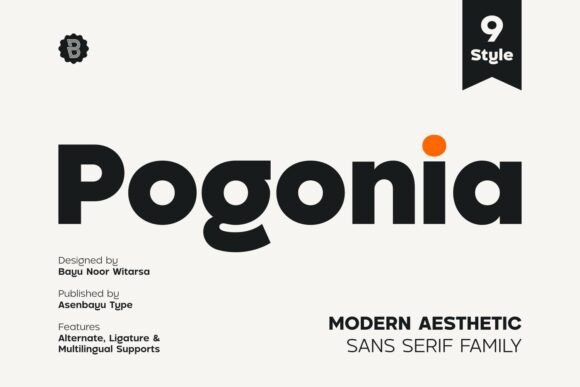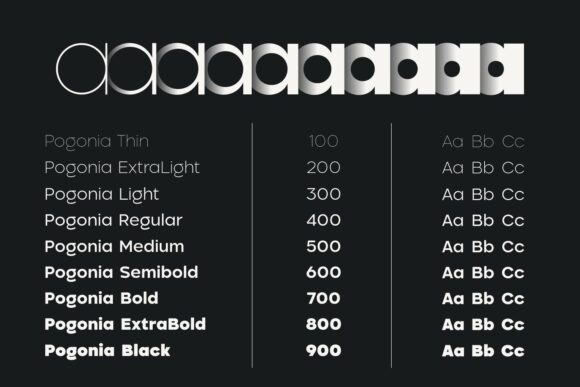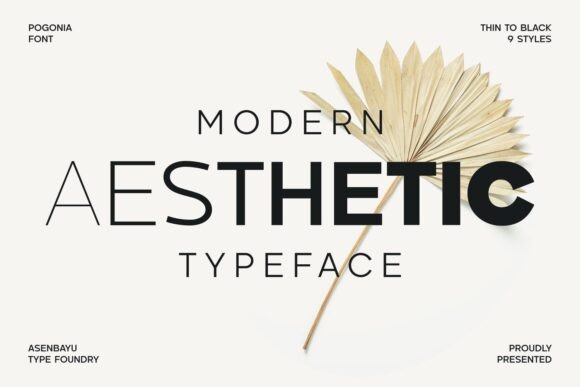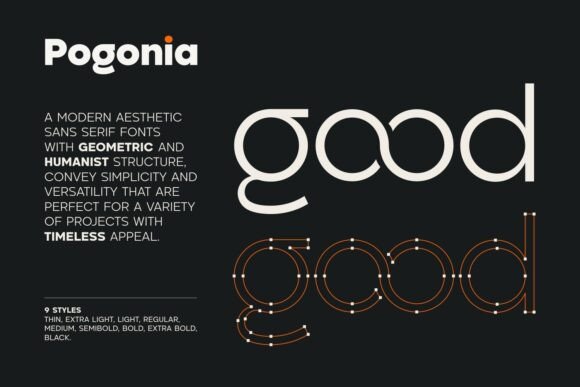
Pogonia Font: Modern Sans Serif for Logo Design & Branding
About the Pogonia Font
Introducing the Pogonia Font, a beautifully crafted typeface designed to elevate your creative projects. Pogonia is a modern aesthetic sans serif fonts with geometric and humanist structure, convey simplicity and versatility that are perfect for a variety of projects with timeless appeal. Use it to convey desired logo designs, attractive posters, social media designs, fashion and websites.
Pogonia’s clean geometry makes it ideal for headlines, branding elements, and short-form text in posters or social media graphics. Its versatility extends to website headers and app interfaces where clarity is paramount, but its humanist structure limits its effectiveness for large blocks of body text. Avoid using it for lengthy paragraphs or UI elements requiring high legibility at small sizes.
The font’s personality is modern and sophisticated, yet approachable. It projects confidence without appearing overly aggressive. Brands seeking a clean, contemporary image will find Pogonia a strong choice.
Consider pairing Pogonia with a classic serif like Garamond for a sophisticated contrast, or a playful script font like Allura for a touch of elegance and personality. For a more minimalist approach, pair it with a geometric sans-serif like Futura.